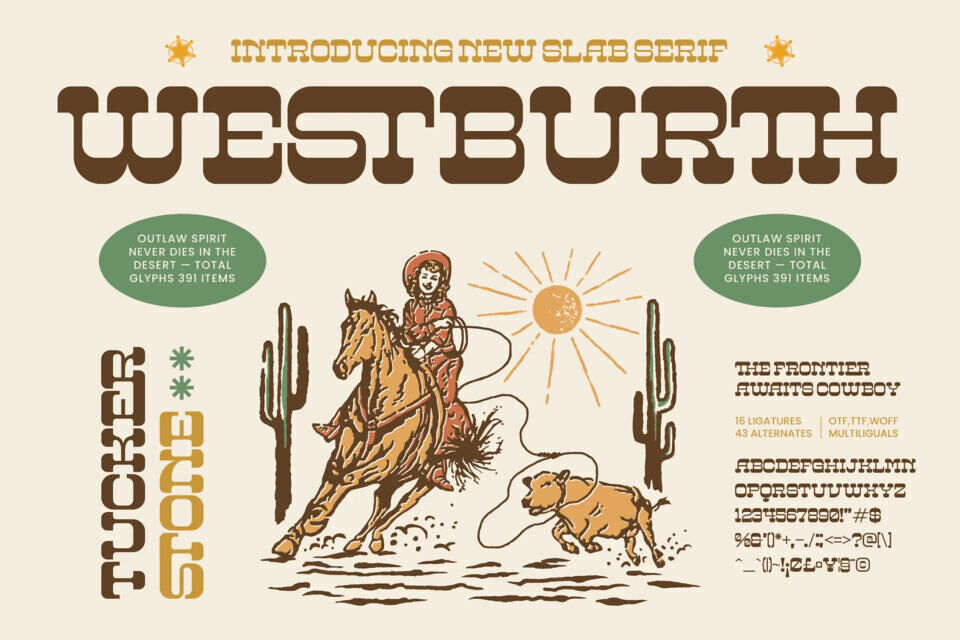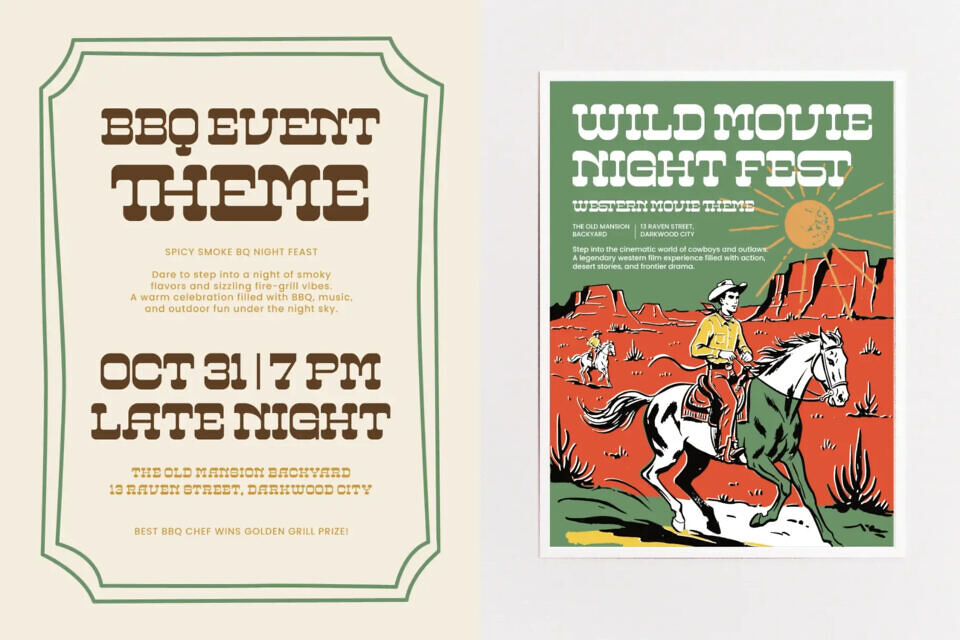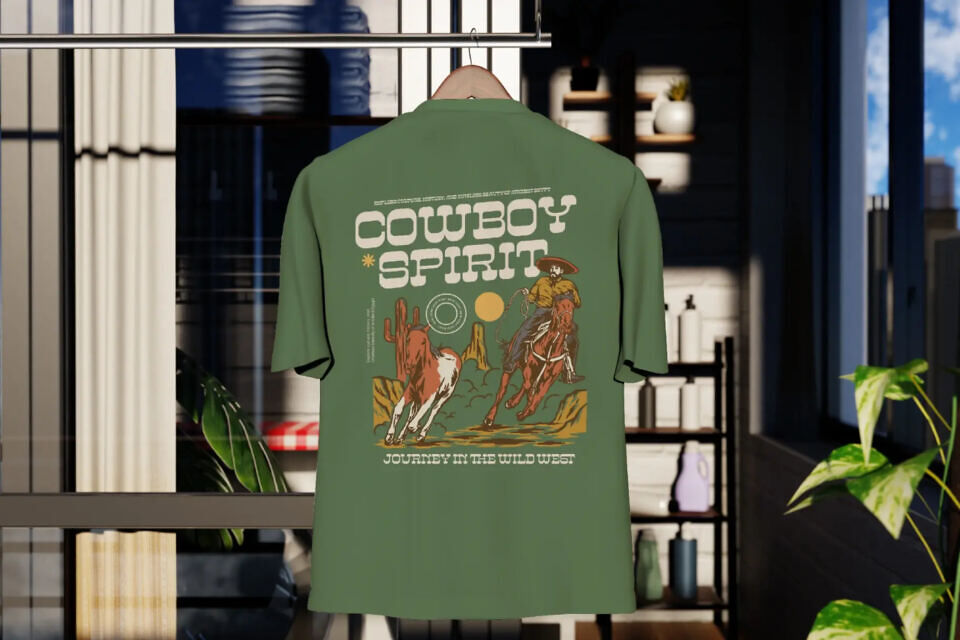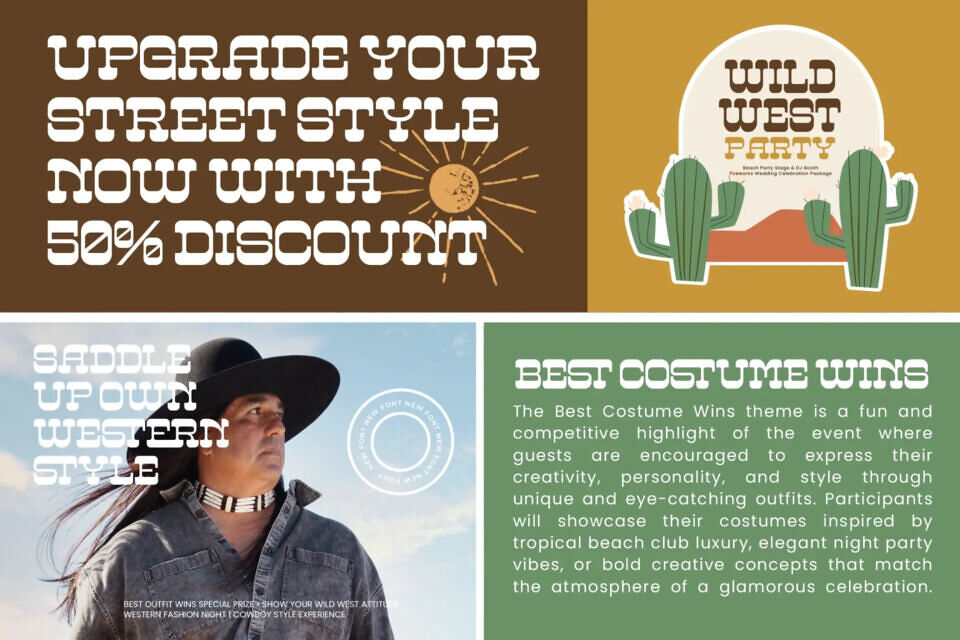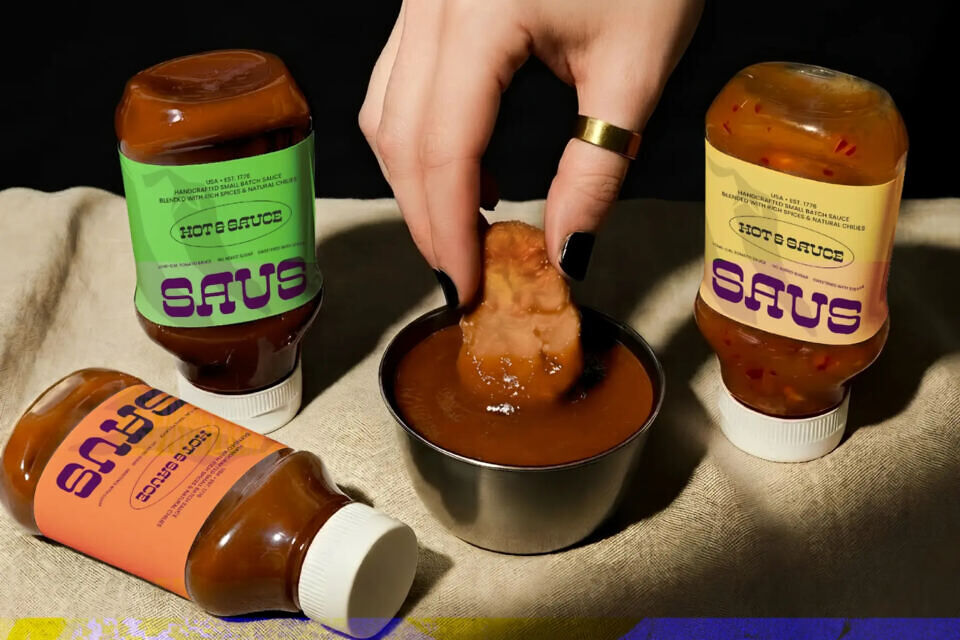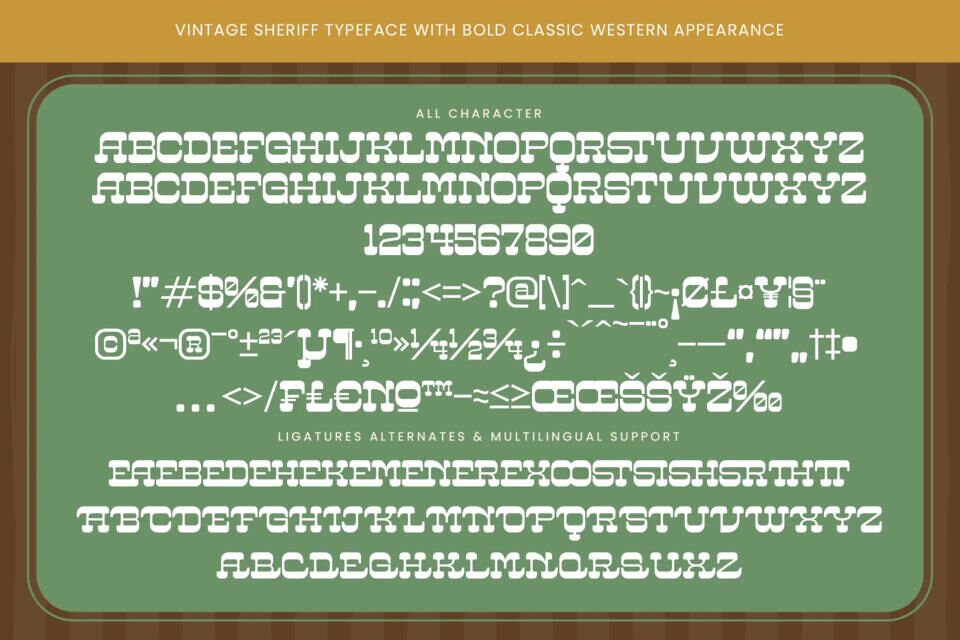
Westburth Font
Embody the American frontier’s rugged spirit with Westburth, a bold slab serif font. Its vintage charm and modern precision create a high-impact aesthetic. Perfect for nostalgic designs, Westburth offers a unique visual weight that defines your vision. With extensive multilingual support, it’s versatile for global projects and diverse branding needs, making it ideal for luxury branding, premium packaging, and editorial design.